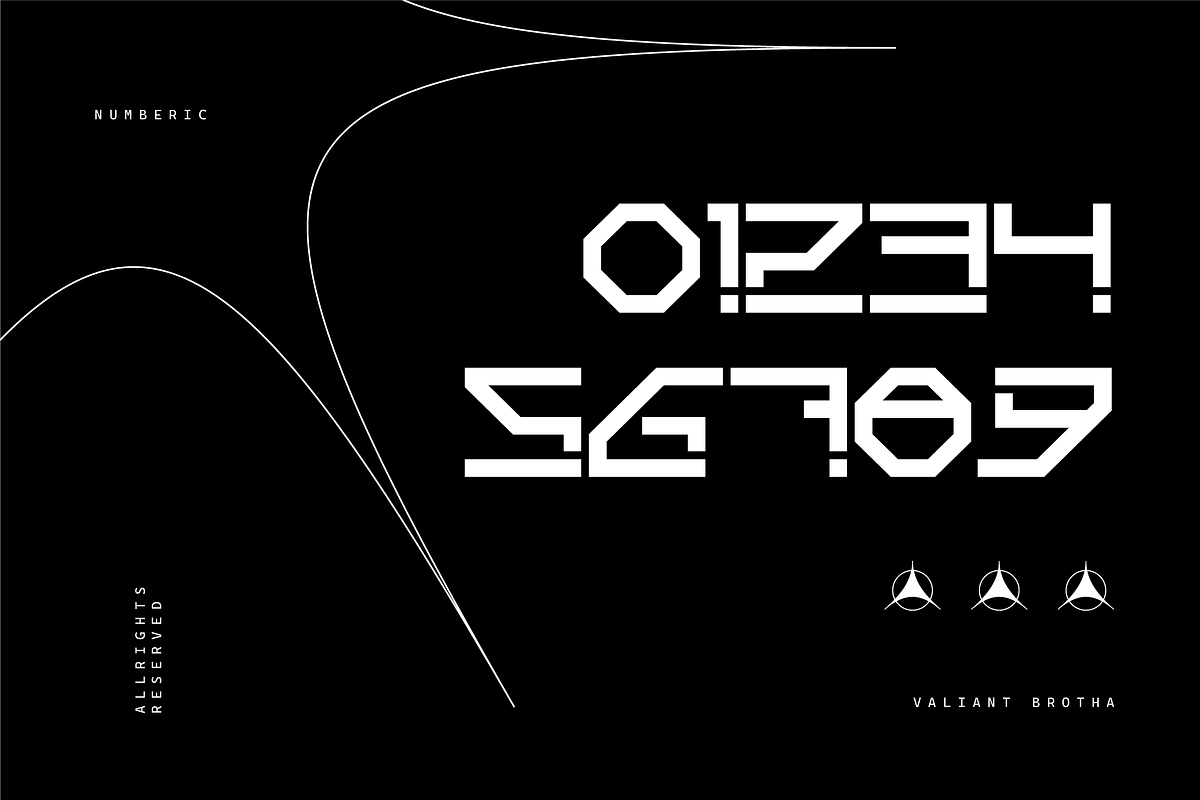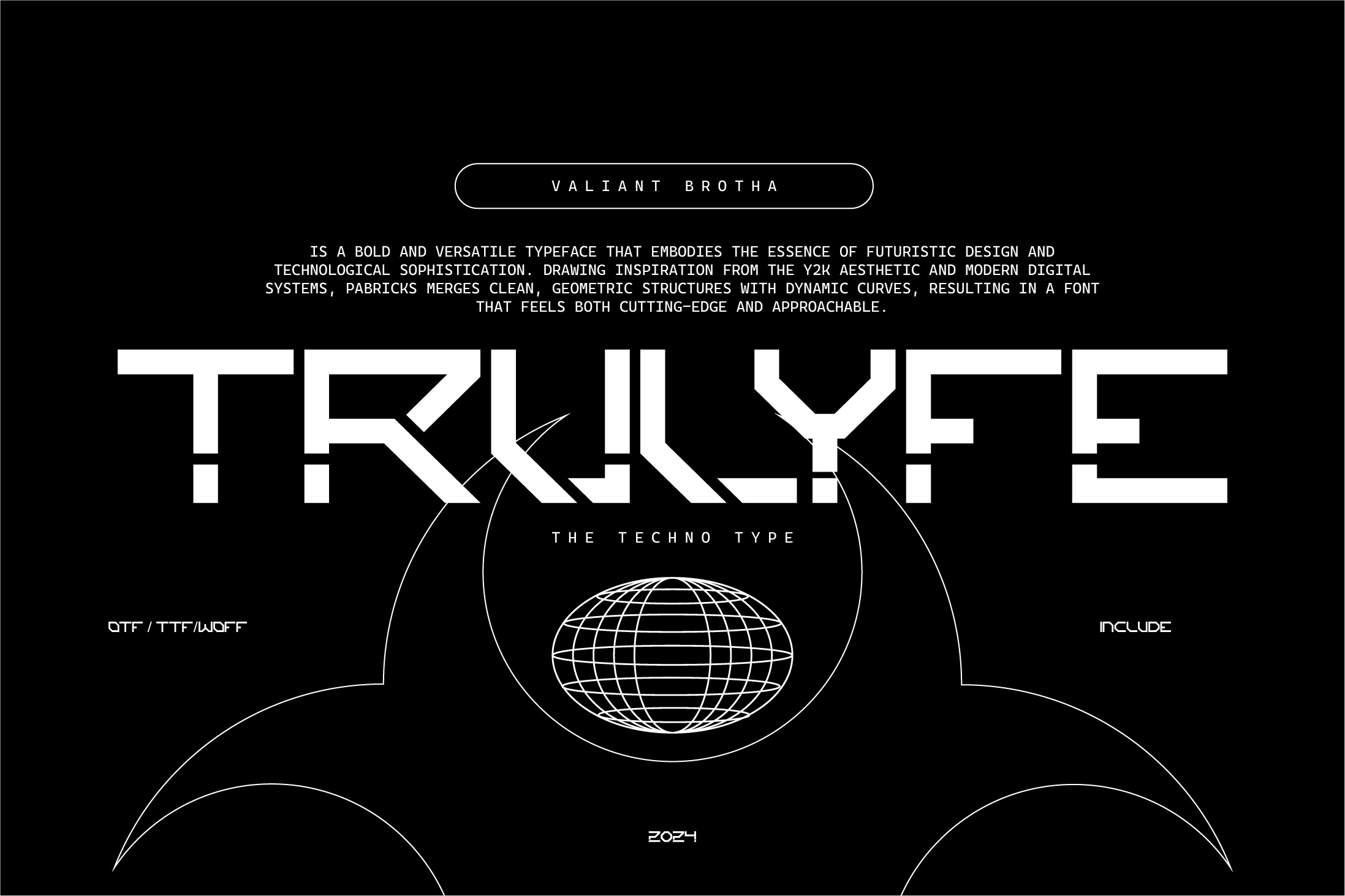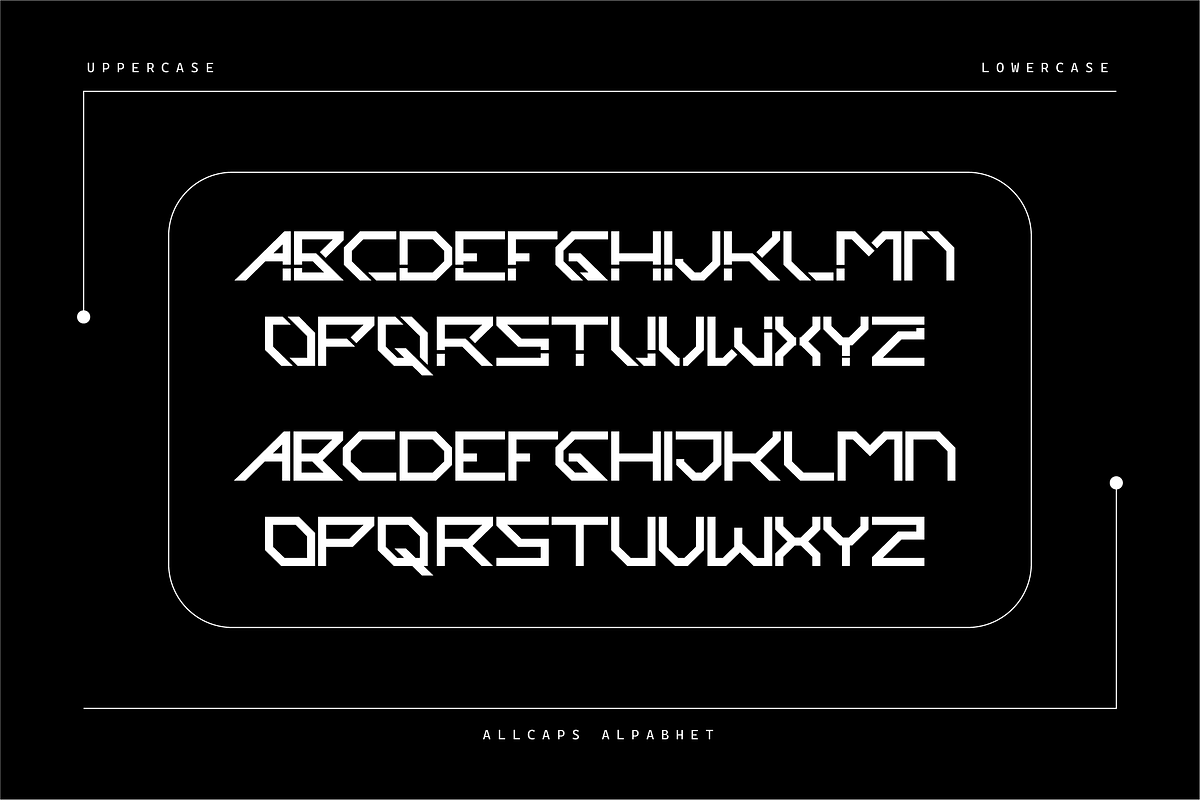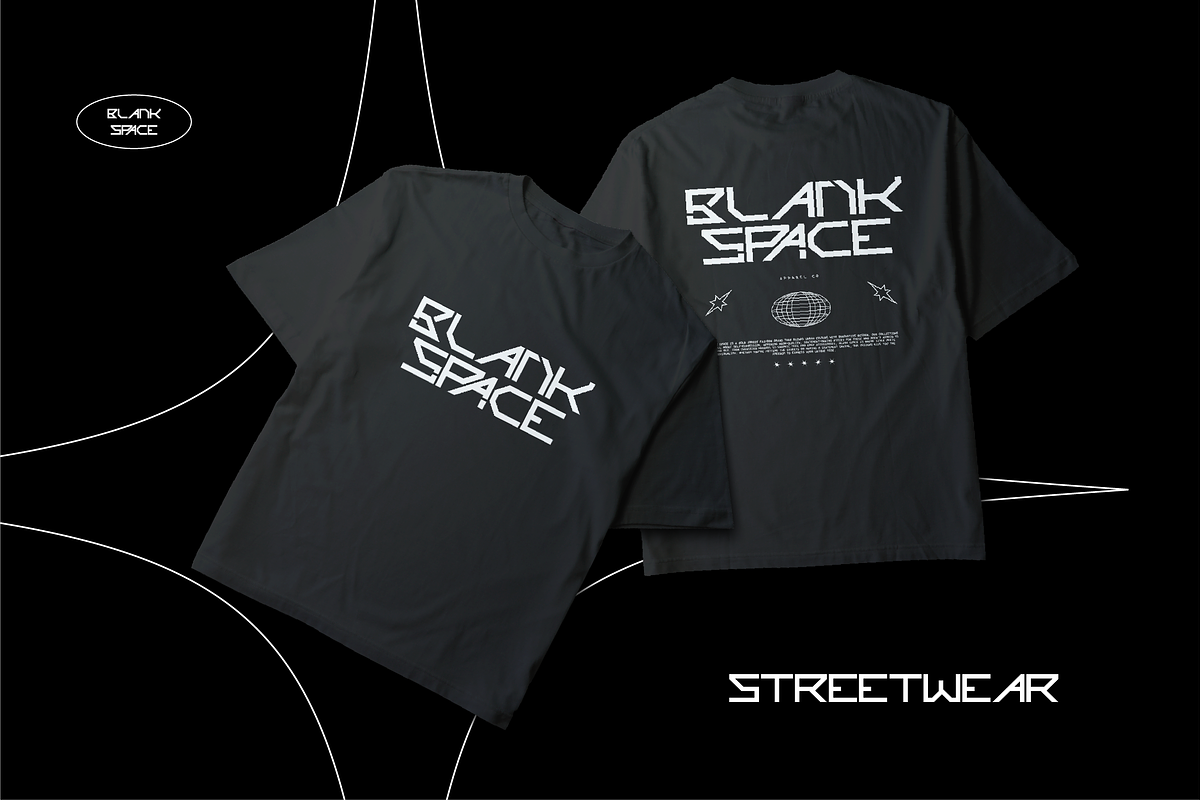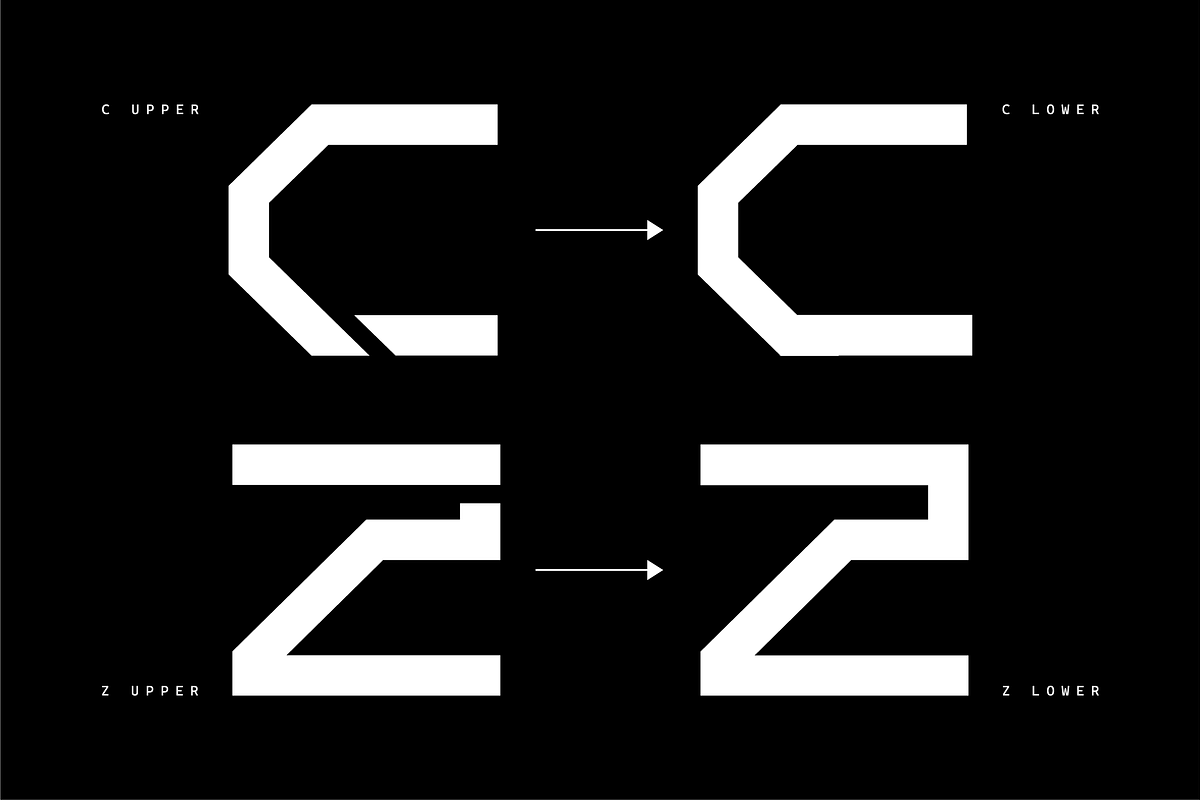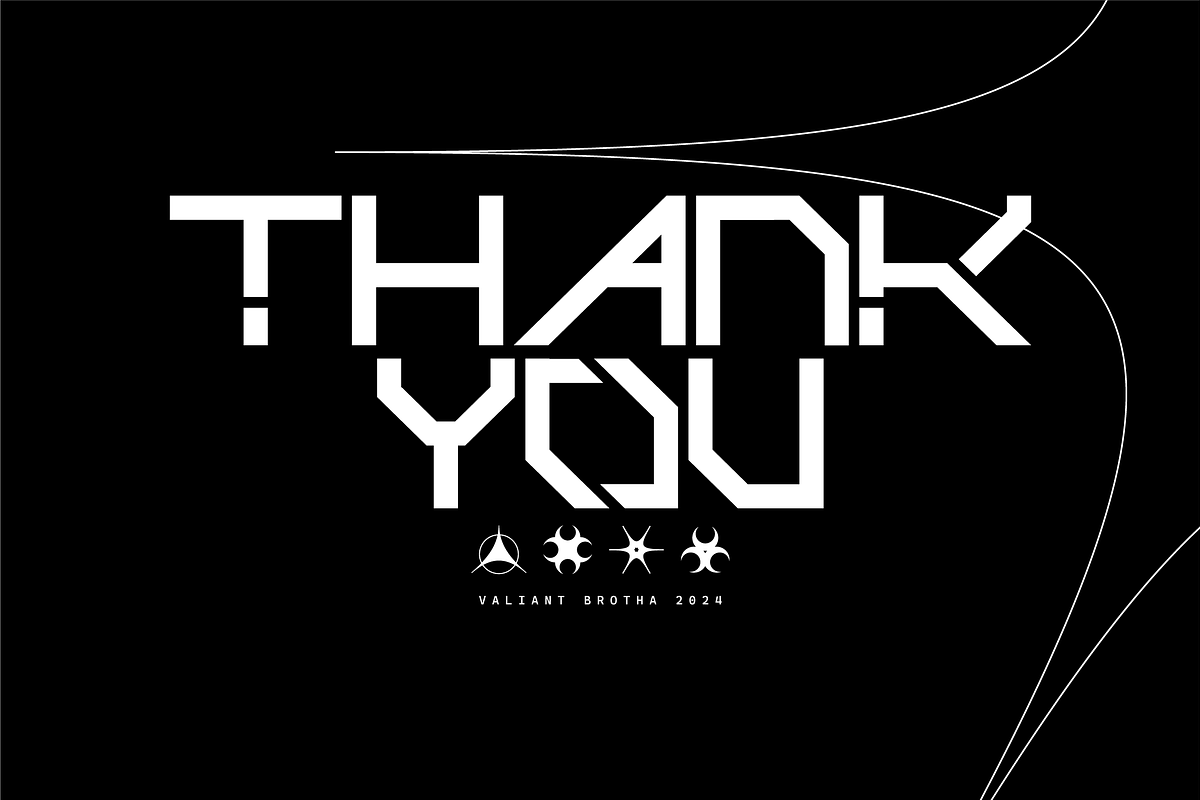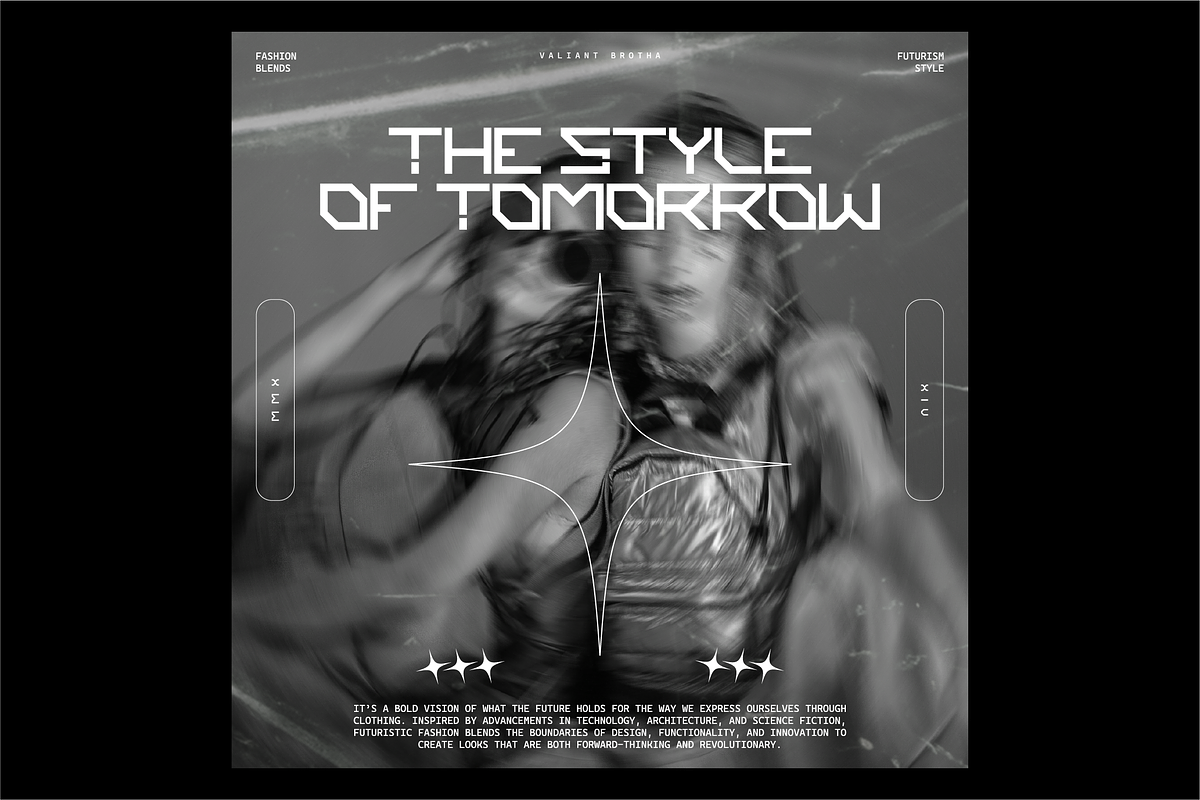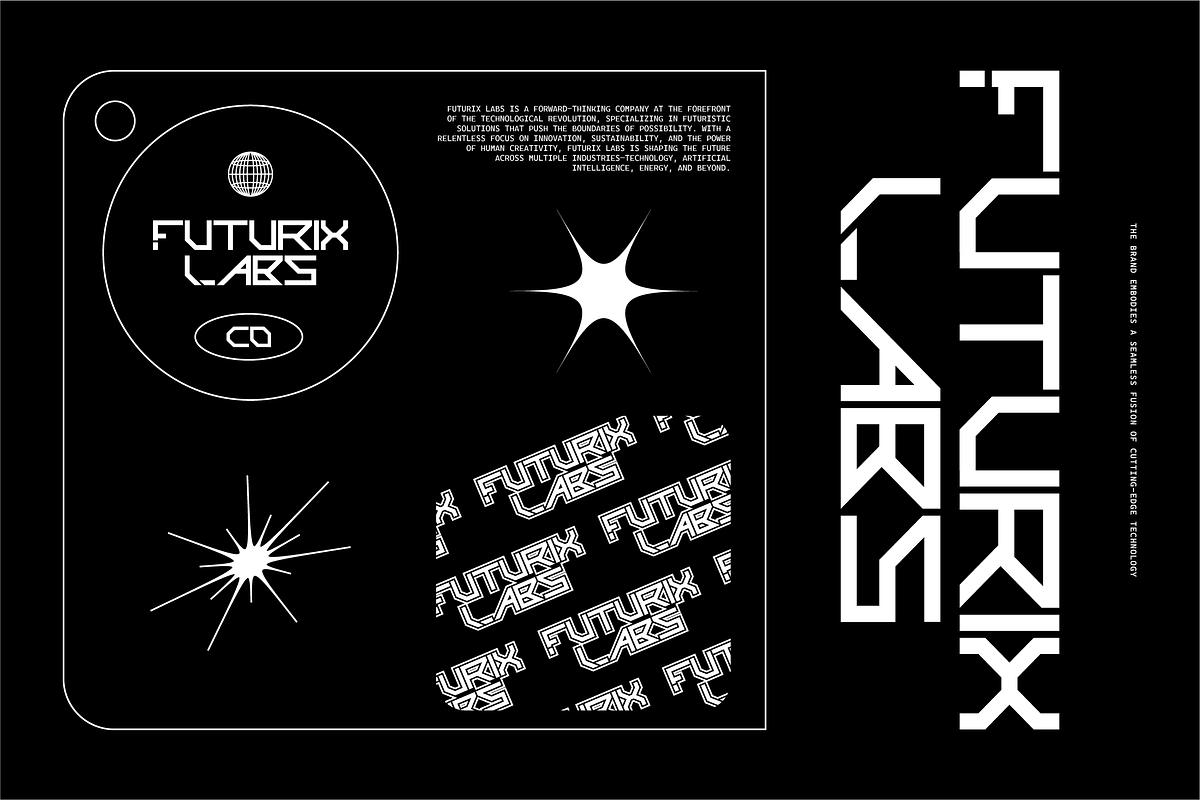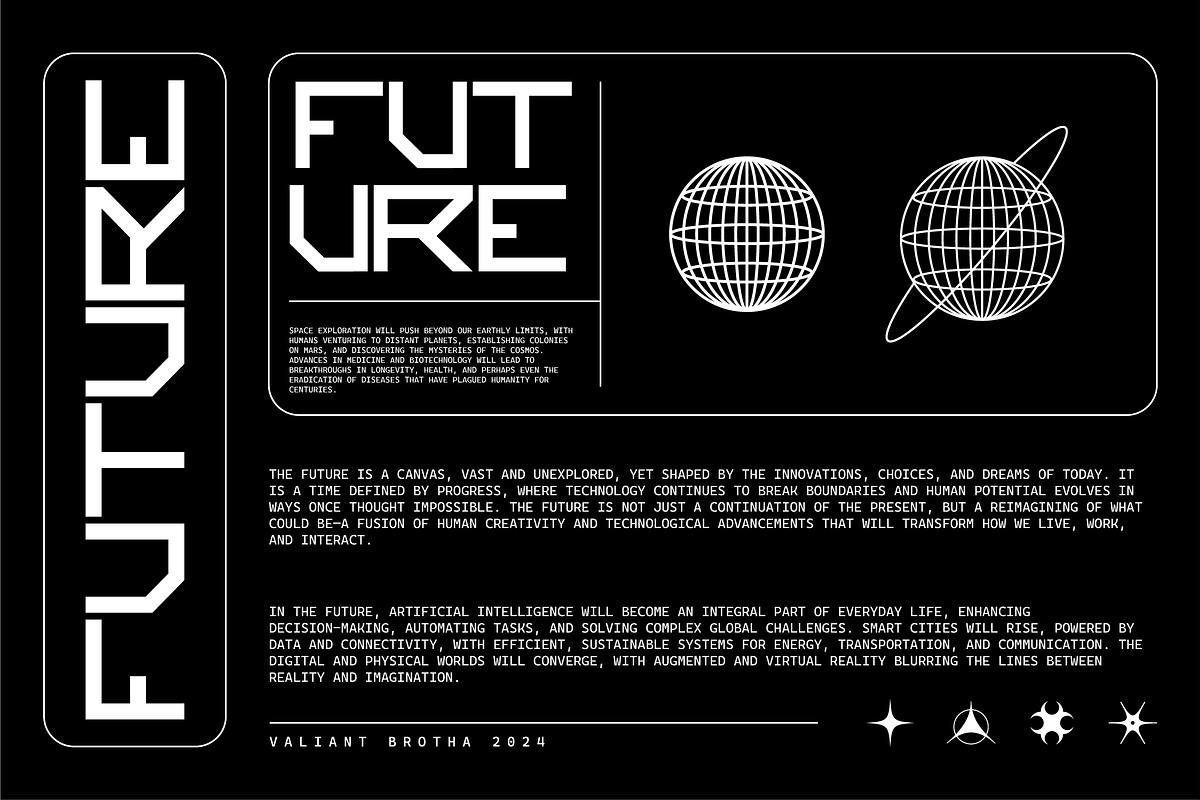
VB Trulyfe - Futuristic Display Font
TruLyfe is a bold and versatile typeface that embodies the essence of futuristic design and technological sophistication.